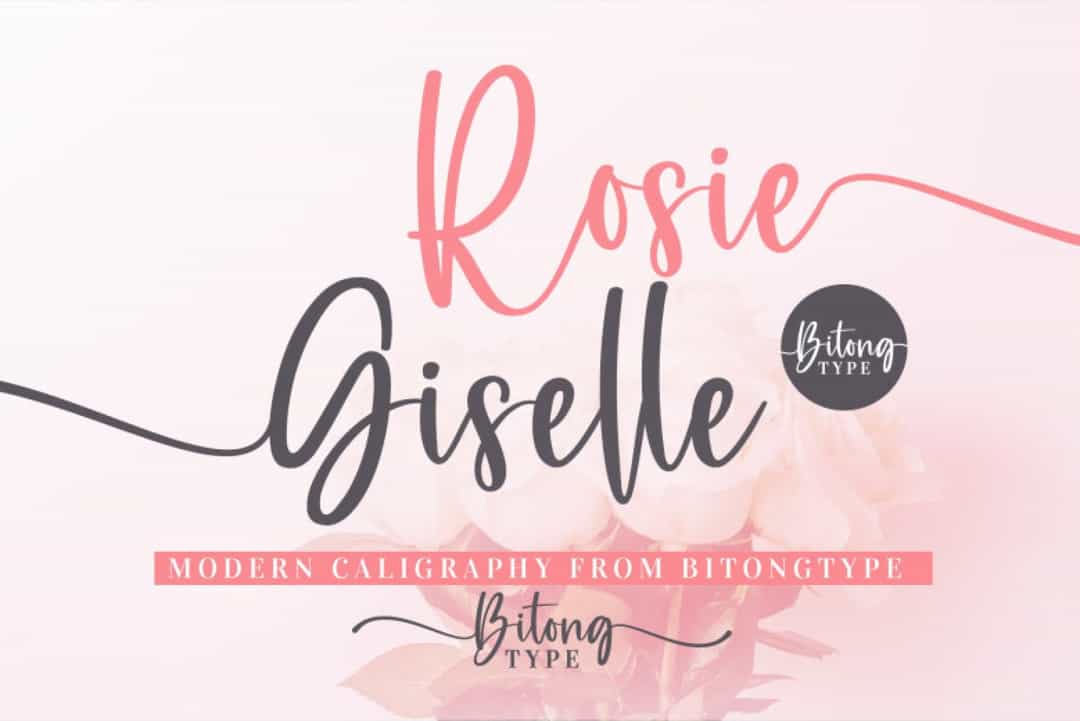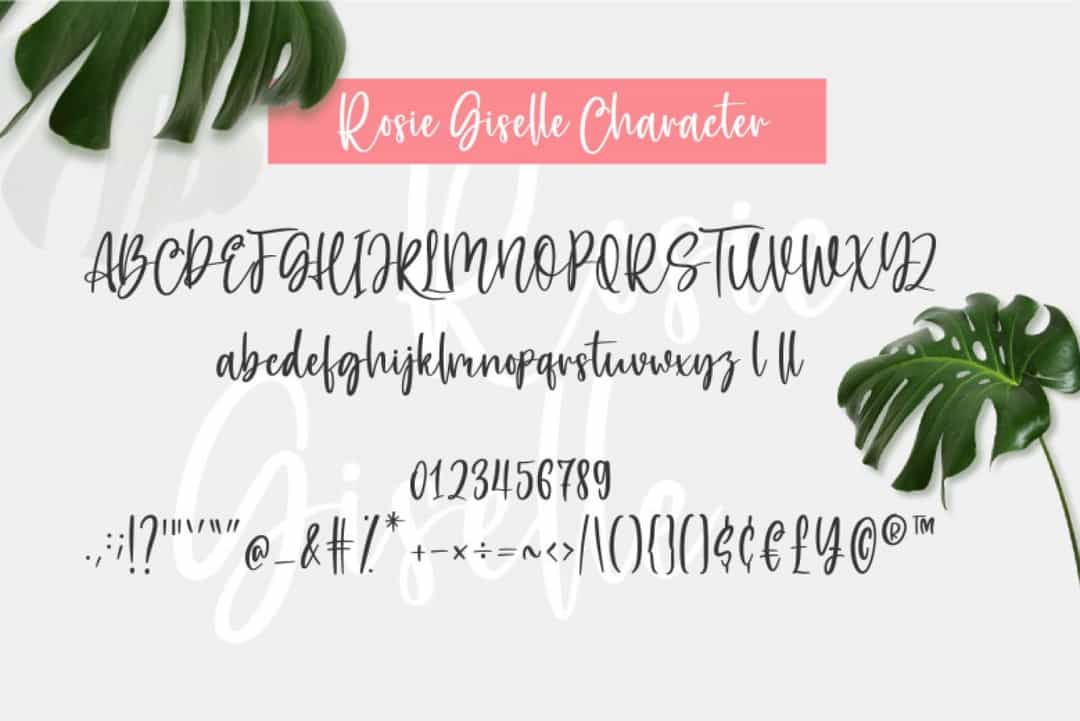
Discover Rosie Giselle Font, part of the Calligraphy collection—a versatile and unique font perfect for adding a personal touch to your projects. Download it for free and enjoy crafting designs with style, from invitations to social media posts. This font is available exclusively for personal use, giving you the freedom to create without limits. Unlock your creativity with Rosie Giselle Font today!
Rosie Giselle exudes elegance and delicacy. Perfect for wedding invitations, thank-you cards, greeting cards, quotes branding corporate cards or any other design needing an elegant appearance – PUA encoded, it allows easy access to all glyphs and swashes!